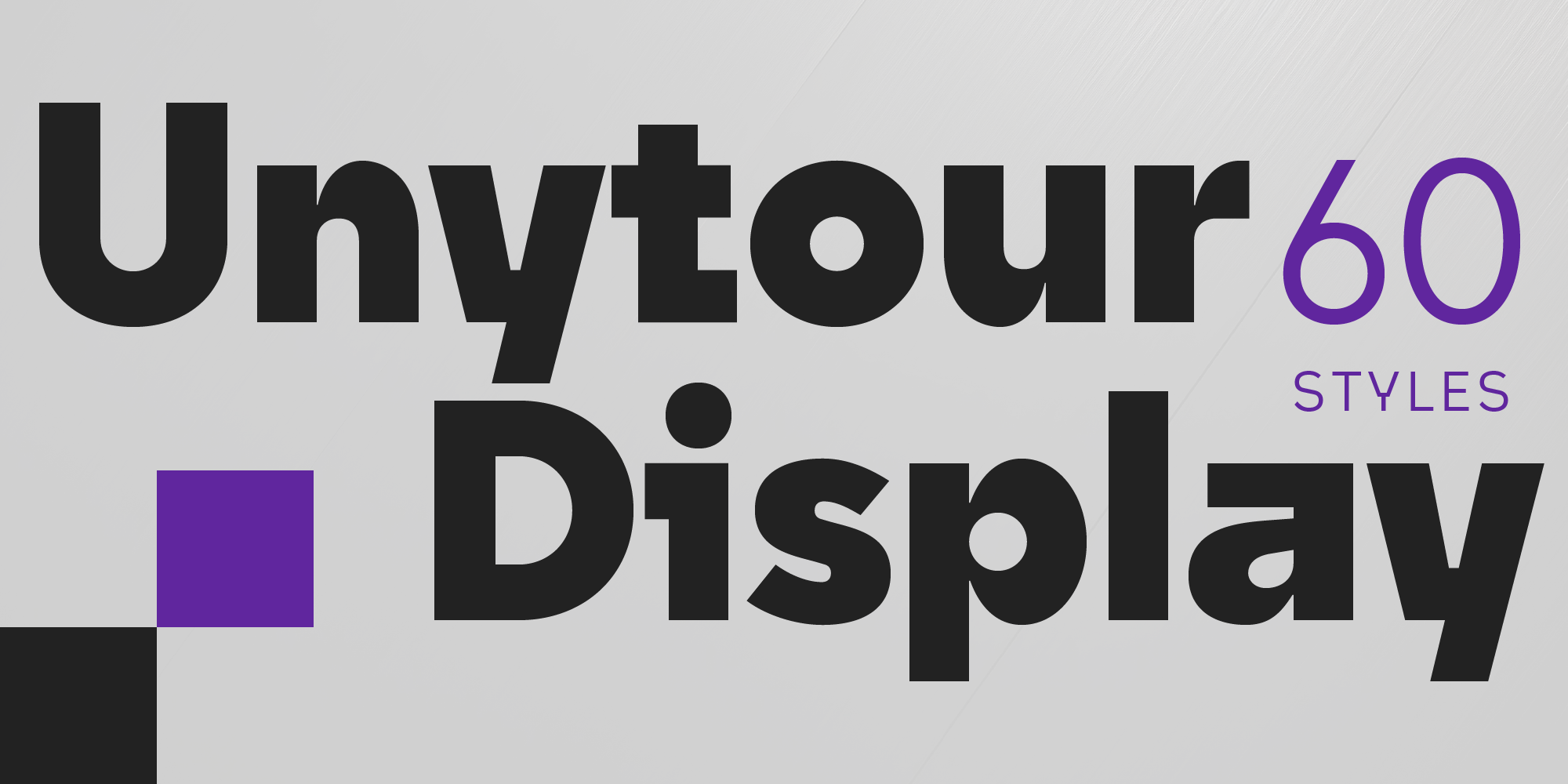
Unytour Display Font is ideal for travel agency branding, tourism marketing campaigns, adventure tour packages, destination wedding invitations, hospitality industry materials, cultural heritage sites, vacation rental properties, expedition equipment advertising, global airline communications, and international tourism boards.
What makes Unytour Display Font exciting is its adventurous spirit and wanderlust-inspiring character that captures the thrill of exploration and discovery in every letterform. This captivating typeface embodies the essence of unified travel experiences with its dynamic styling and globe-trotting personality that evokes exotic destinations, cultural exchanges, and unforgettable journeys. The font's adventurous character creates an immediate desire to pack bags and explore new horizons.
Unytour Display Font family includes display weight with travel-inspired character designs featuring adventurous curves and exploration-focused proportions. The typeface maintains excellent impact and readability while preserving its distinctive wanderlust personality through carefully crafted letterforms that seem to dance with the rhythm of distant cultures and far-off places.
Tourism professionals consistently select Unytour Display Font Free Download for projects requiring authentic travel appeal and adventure authenticity. This remarkable typeface brings the excitement of global exploration to brand communications, combining cultural diversity with universal wanderlust to create inspiring travel experiences. The thoughtfully designed characters ensure memorable visual impact across all applications, making it essential for travel companies, hospitality brands, and any organization seeking to communicate the transformative power and endless possibilities found in cultural exploration and adventure travel that unites people across borders and creates lifelong memories.